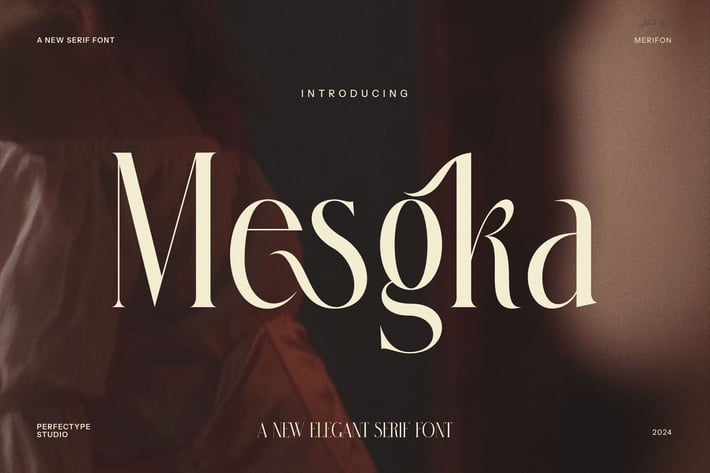
Mesgka is an elegant serif font designed with classic style and modern appeal. It combines smooth curves and clean lines, making it both stylish and easy to read. This font is perfect for designers who want a refined look that suits many different projects.
This font stands out because of its clear and balanced letter shapes. It works well in various sizes, from large headlines to smaller text. Therefore, it fits perfectly for branding, editorial design, invitations, and more. Because of its elegant form, Mesgka adds a touch of sophistication to any design.
Key features of Mesgka include:
- Classic serif style with a modern twist
- Smooth, balanced letterforms for readability
- Ideal for branding, editorial, and print projects
- Works well for logos, invitations, and packaging
- Combines elegance with clear readability
- Suitable for digital and print formats
- Adds a refined, stylish feel to your work
Additionally, Mesgka’s design makes reading easy, thanks to its well-spaced letters and neat strokes. Furthermore, the font blends classic serif charm with contemporary flair, making it flexible for many design uses. It pairs beautifully with sans-serif fonts for layered typography.
Moreover, Mesgka offers versatility. You can use it for luxury brands, fashion magazines, or formal events. Its elegant form gives your project a professional and polished look without being overly complex.
In conclusion, Mesgka is an excellent choice when you need a serif font that is both stylish and functional. It enhances your designs with timeless beauty and modern clarity.
This font stands out because of its clear and balanced letter shapes. It works well in various sizes, from large headlines to smaller text. Therefore, it fits perfectly for branding, editorial design, invitations, and more. Because of its elegant form, Mesgka adds a touch of sophistication to any design.
Key features of Mesgka include:
- Classic serif style with a modern twist
- Smooth, balanced letterforms for readability
- Ideal for branding, editorial, and print projects
- Works well for logos, invitations, and packaging
- Combines elegance with clear readability
- Suitable for digital and print formats
- Adds a refined, stylish feel to your work
Additionally, Mesgka’s design makes reading easy, thanks to its well-spaced letters and neat strokes. Furthermore, the font blends classic serif charm with contemporary flair, making it flexible for many design uses. It pairs beautifully with sans-serif fonts for layered typography.
Moreover, Mesgka offers versatility. You can use it for luxury brands, fashion magazines, or formal events. Its elegant form gives your project a professional and polished look without being overly complex.
In conclusion, Mesgka is an excellent choice when you need a serif font that is both stylish and functional. It enhances your designs with timeless beauty and modern clarity.